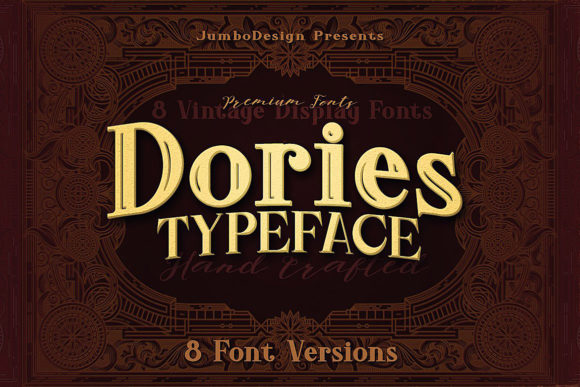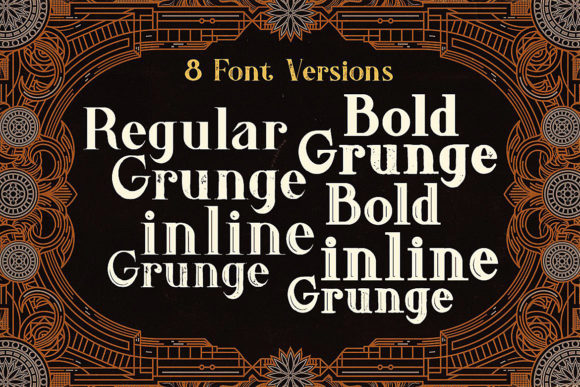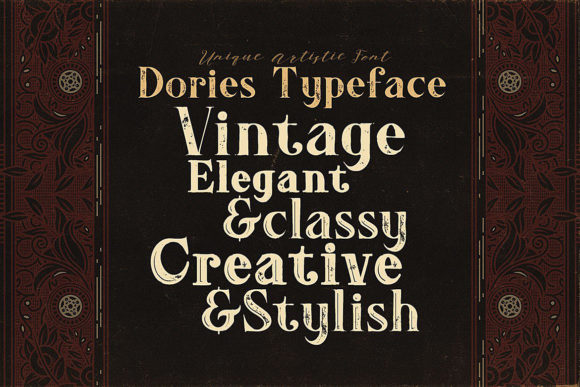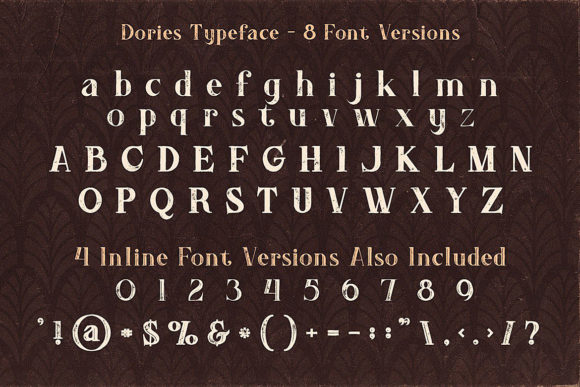
Dories Family Font
About the Dories Family Font
Let us introduce you to Dories Family Font, where timeless design meets modern craftsmanship. The Dories is a vintage & grunge display family. It includes 8 styles which can be used to create multiple unique designs in an instant.
Dories excels as a display font for headlines, posters, and branding projects requiring a vintage, gritty aesthetic. Its strong character makes it ideal for short impactful statements, logos, and packaging designs where a bold, retro feel is desired. However, its low x-height and decorative elements make it unsuitable for body text or UI applications where readability is paramount. Avoid using it for lengthy paragraphs or small sizes.
The rough texture of Dories pairs well with clean, modern sans-serifs like Montserrat or Open Sans for contrast. For a more harmonious pairing that maintains the vintage vibe, consider a classic serif such as Garamond or Didot. A playful script font like Pacifico could also complement Dories in specific applications needing a touch of handwritten charm, but use it sparingly to avoid visual clutter.
Dories projects a bold, rebellious personality, suggesting a brand with a vintage-inspired, yet edgy, image. It’s well-suited for brands in the fashion, music, or entertainment industries.